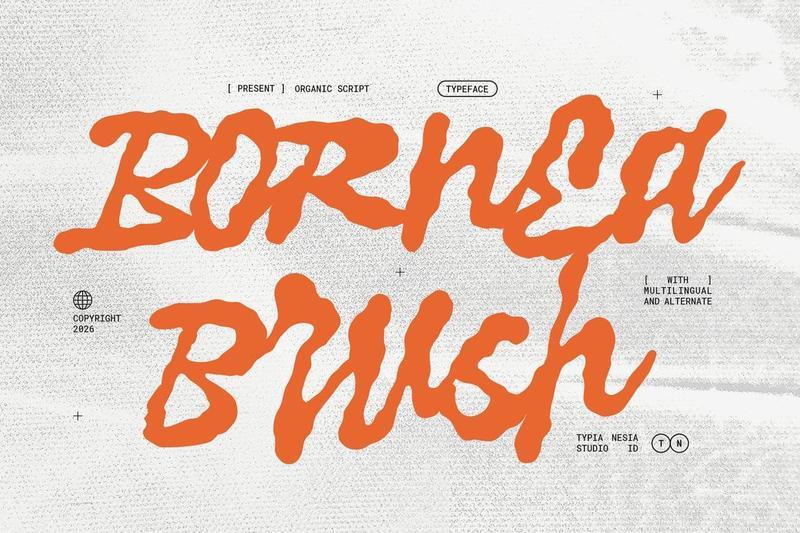
Bornea Brush – Irregular Organic Graffiti Script MQMDRVB
Bornea Brush – Irregular Organic Graffiti Script Font with Psychedelic Style
Bornea Brush is an irregular organic graffiti script font featuring fluid shapes, handcrafted strokes, and a distinctive psychedelic character. Designed to bring energy, creativity, and artistic expression to your projects, it delivers a bold visual presence that stands out across modern and experimental designs. Perfect for music posters, album covers, festival branding, creative packaging, social media graphics, editorial layouts, book covers, event promotions, and artistic visual identities. It features multilingual support, alternates, numbers, punctuation, and authentic handcrafted details for greater creative flexibility.
Break away from ordinary typography and create visuals that feel bold, expressive, and unmistakably original.